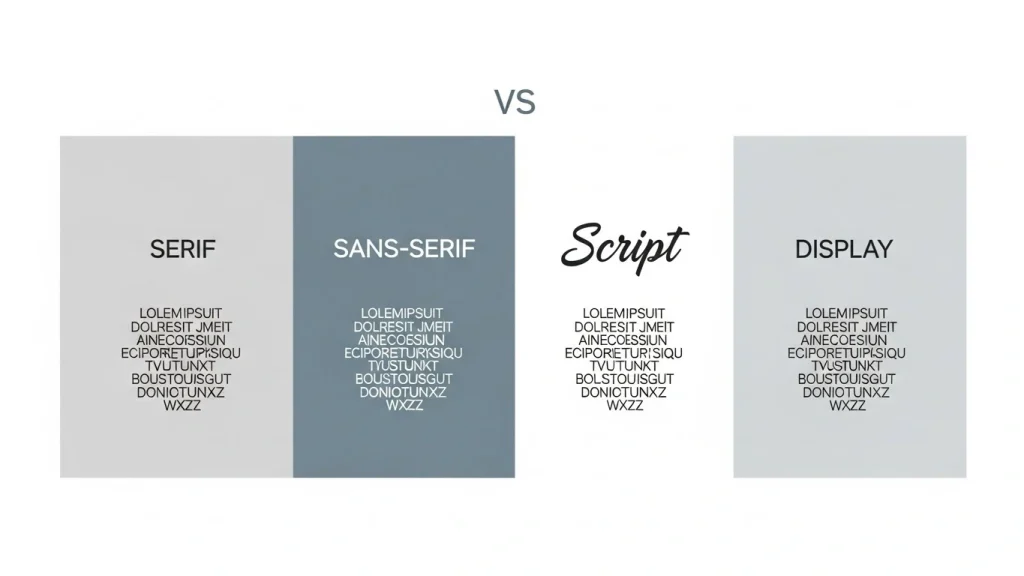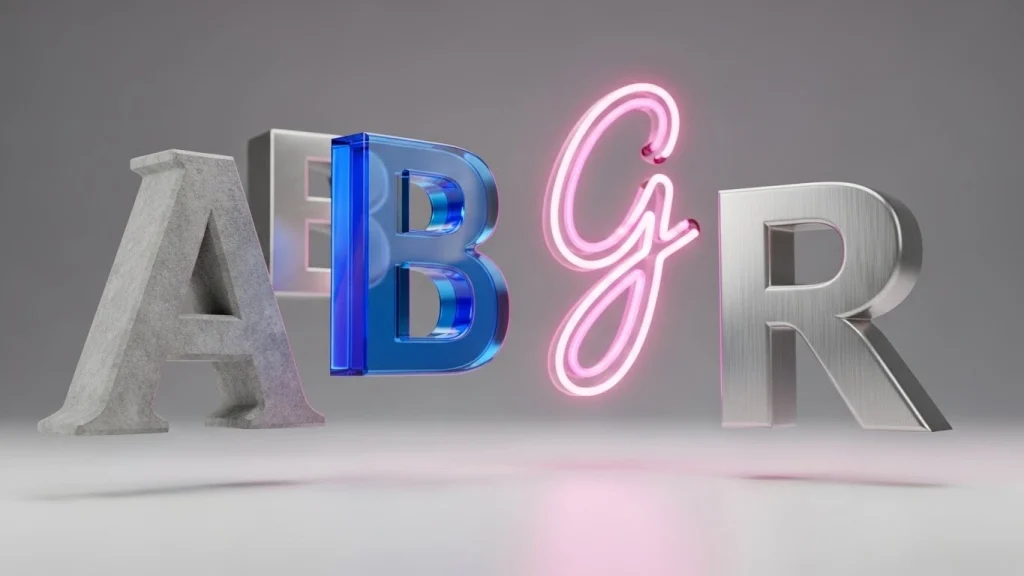
The Psychology of Fonts: How Typography Influences Mood
Every time you read a word on a screen or a billboard, your brain is processing more than just the literal meaning of the text. You are reacting to the visual “voice” of the lettering. Understanding the psychology of fonts is essential for designers and marketers because typography acts as a non-verbal cue that sets the emotional tone before a single sentence is even finished.
Whether a brand feels traditional, innovative, or friendly depends largely on the curves, weights, and spacing of its chosen typeface. By mastering these subtle cues, we can guide the reader’s subconscious toward a specific emotional state.
Understanding the Psychology of Fonts in Design
To understand how typography shapes perception, we have to look at the emotional associations we have built over decades of visual culture. Typography isn’t just about legibility; it’s about affective processing—the way visual stimuli trigger emotional responses in the human amygdala.
Understanding the Psychology of Fonts in Design
1. Serif Fonts: Tradition and Trust
Serif fonts (like Times New Roman or Georgia) feature small decorative “feet” at the ends of strokes. In the psychology of fonts, these represent authority, stability, and respect for tradition. This is why law firms, universities, and prestige newspapers almost exclusively use serifs—they want to signal that they are established and reliable.
2. Sans-Serif Fonts: Modernity and Clarity
Sans-serif fonts (like Helvetica or Arial) lack those decorative feet, resulting in a clean, streamlined look. These fonts evoke feelings of honesty, modernity, and “no-nonsense” efficiency. Tech giants like Google and Apple transitioned to sans-serif to appear more approachable and cutting-edge in a digital-first world.
3. Script and Handwritten Fonts: Elegance and Personality
Script fonts mimic cursive handwriting. They often trigger feelings of femininity, luxury, or a personal, handcrafted touch. While a script font might make a wedding invitation feel elegant, using it for a technical manual would create “cognitive friction,” making the information feel unnecessarily difficult to process.
4. Display and Bold Fonts: Impact and Emotion
Large, bold display fonts are designed to grab attention. They carry a sense of strength and urgency. However, the psychology of fonts suggests that if these are overused, they can feel “loud” or aggressive, potentially pushing a reader away rather than drawing them in.
Why Typography Matters for SEO and UX
Google’s algorithms increasingly prioritize User Experience (UX). If your font aesthetic choices are difficult to read or don’t match the “vibe” of your content, users will bounce quickly. A harmonious use of font psychology keeps readers engaged longer, signals high-quality content, and indirectly boosts your search rankings through improved dwell time.